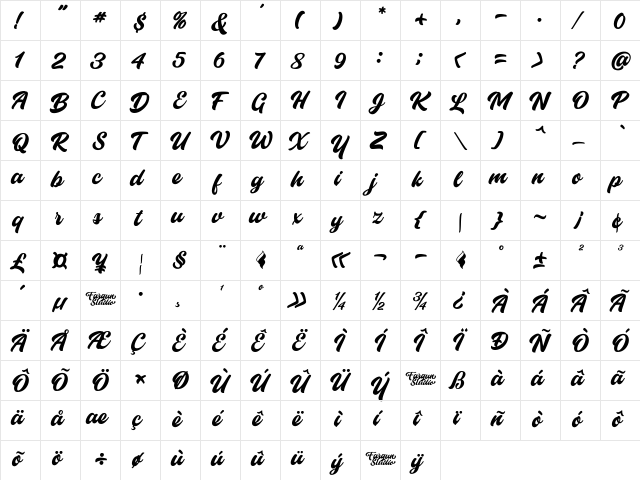
Historia Script DEMO Regular
| Foundry | Fargun Studio |
| Designer | Fargun Studio |
Design Context for Historia Script DEMO Typeface
Historia Script DEMO flows with the natural rhythm of handwritten lettering, making it ideal for designs that call for warmth and personal expression.